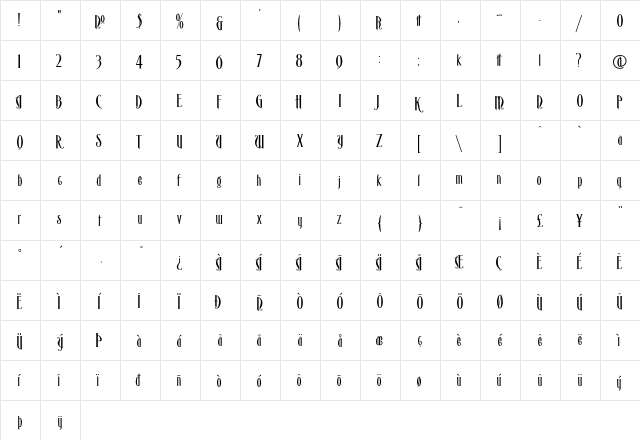
LHF Victoria 1 Regular
| Foundry | John Studden for Letterhead Fonts |
| Designer | John Studden for Letterhead Fonts |
Design Context for LHF Victoria 1 Typeface
LHF Victoria 1 is a composed and adaptable typeface that performs quietly and consistently across a wide range of design contexts.